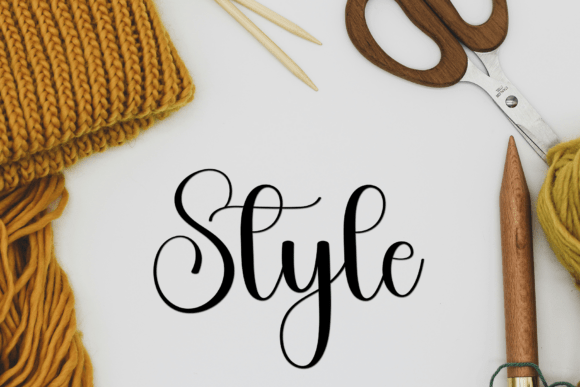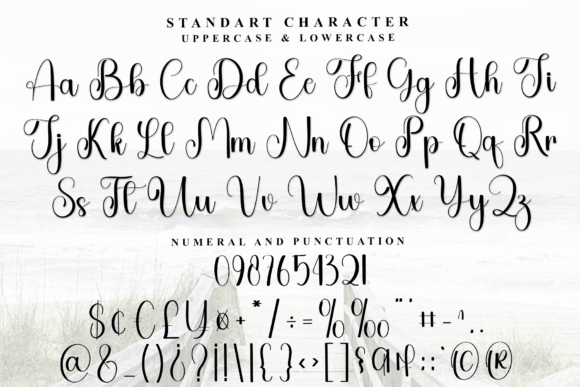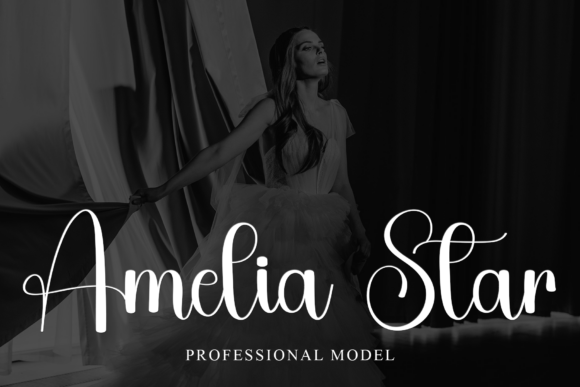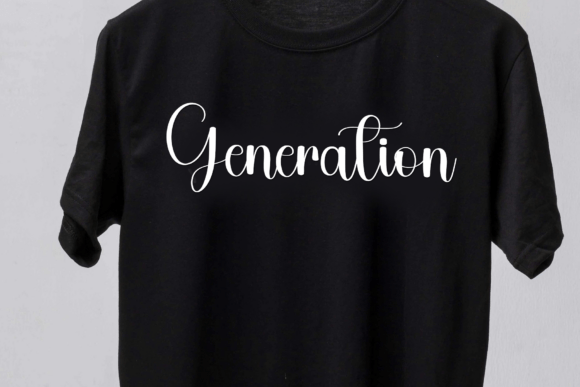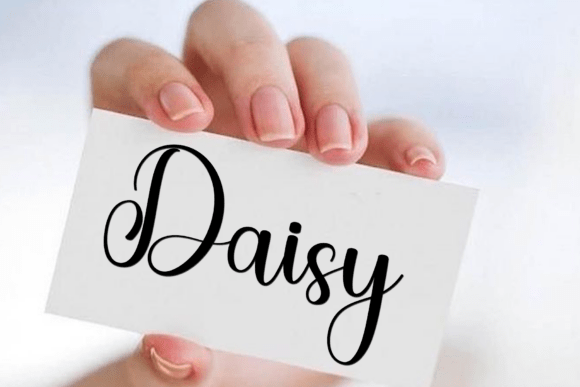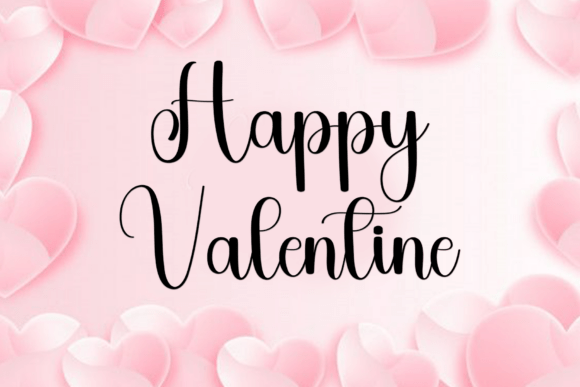
Introducing Birthday Wednesday Font: The Perfect Addition to Your Design Arsenal
Are you tired of using the same old fonts for your personal projects, invitations, and social media graphics? Look no further than the Birthday Wednesday Font, a casual and creative font that exudes warmth and friendliness. Its unique, hand-drawn aesthetic is sure to add a fun and unique touch to any design, making it perfect for designers and crafters alike.
The Characteristics of Birthday Wednesday Font
So, what makes the Birthday Wednesday Font so special? For starters, its round, playful strokes create a relaxed and approachable feel that’s hard to find in other fonts. This makes it ideal for designs that require a personal touch, such as:
- Personal invitations, like birthday party invites or wedding announcements
- Social media graphics, including Facebook posts, Instagram stories, and Twitter headers
- DIY craft projects, like handmade cards or scrapbooking
What Sets Birthday Wednesday Font Apart
In a world where fonts can be generic and boring, the Birthday Wednesday Font stands out from the crowd. Its charming, hand-drawn aesthetic adds a level of personality and whimsy to any design. Whether you’re a professional designer or a crafty hobbyist, this font is sure to inspire your creativity and take your designs to the next level.
Whether you’re a professional designer or a crafty hobbyist, the Birthday Wednesday Font is the perfect addition to your design arsenal. Its unique aesthetic and technical capabilities make it an ideal choice for:
- Personal projects, like handmade cards or scrapbooking
- Commercial designs, like branding or advertising materials
- Social media graphics, including Facebook posts, Instagram stories, and Twitter headers
Tips for Using Birthday Wednesday Font
To get the most out of the Birthday Wednesday Font, here are a few tips to keep in mind:
- Use it for headlines or titles to add a pop of personality to your design
- Pair it with other fonts to create a unique and eye-catching combination
In conclusion, the Birthday Wednesday Font is a must-have for designers and crafters looking to add a personal touch to their designs. Its unique, hand-drawn aesthetic and technical capabilities make it an ideal choice for a wide range of design applications. So why settle for generic fonts when you can add a touch of personality and whimsy to your designs with the Birthday Wednesday Font?